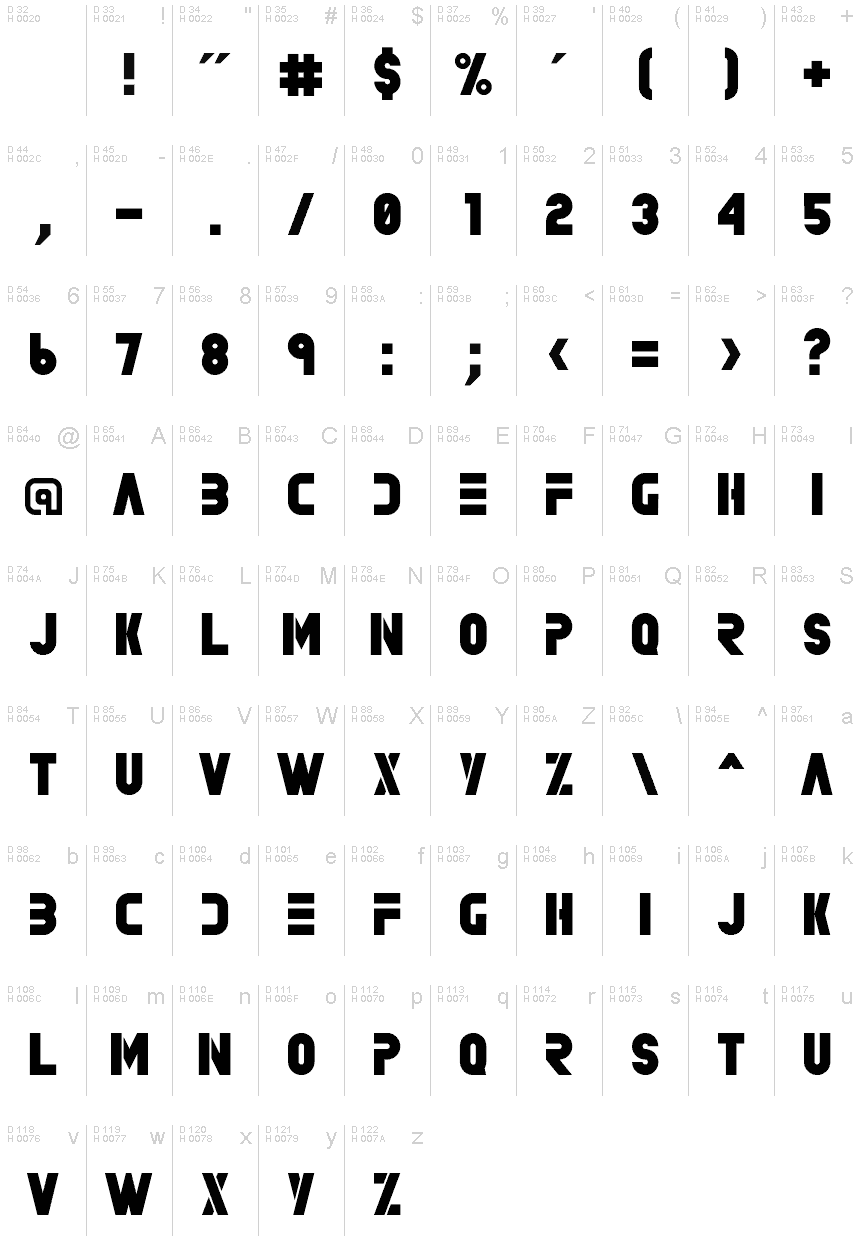
Rave
Rave, designed by Asus, is a bold statement in the realm of display fonts, where its condensed width and robust weight command attention. The techno style of Rave encapsulates a modern aesthetic that is both sleek and assertive, making it a standout choice for creative projects that require a touch of futurism and innovation.
The font's strong lines and sharp angles contribute to its dynamic presence, which can enhance the visual impact of headlines, logos, and promotional materials. Its condensed form allows for impactful use in space-sensitive contexts without sacrificing readability.
With Rave's contemporary flair and techno vibe, designers can leverage this font to evoke the energy of electronic music scenes or the precision of high-tech environments. Its versatility makes it suitable for an array of design projects that aim to be at the forefront of style while delivering messages with power and clarity.